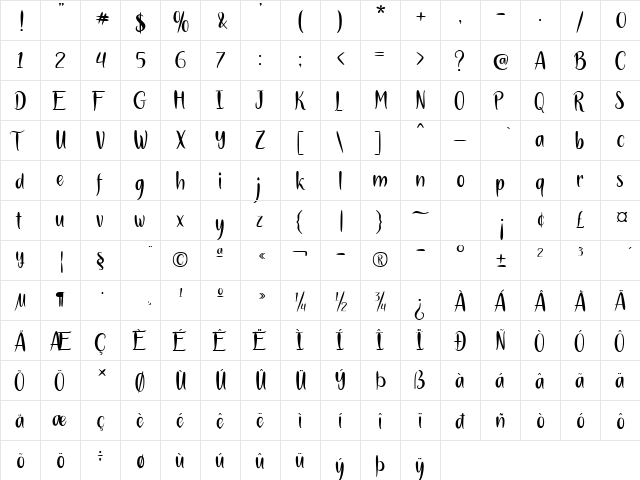
Red Gradient Regular
| Designer | deedeetype |
Design Context for Red Gradient Typeface
Red Gradient takes a measured approach to typography — its balanced proportions and neutral character make it a reliable workhorse for both digital and print work.